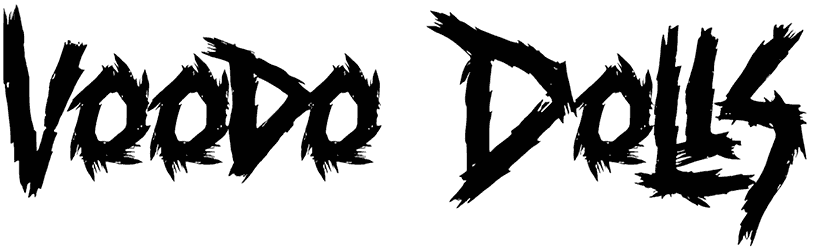
Voodo Dolls Font
Voodo Dolls is a fancy horror font that is perfect for any Halloween-themed artwork you may have in mind. Although it lacks lowercase letters and some numerals, its creepy, eerie style makes it well worth downloading for use in Halloween-themed projects or presentations.